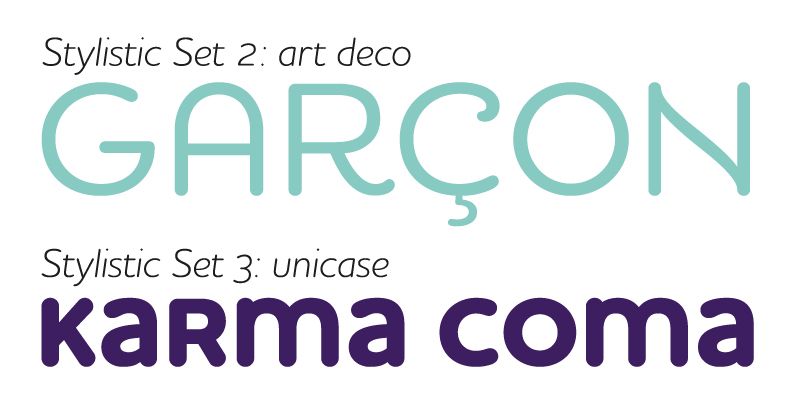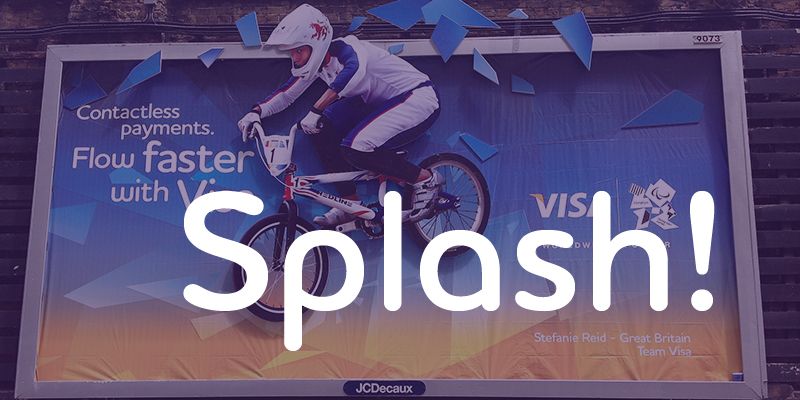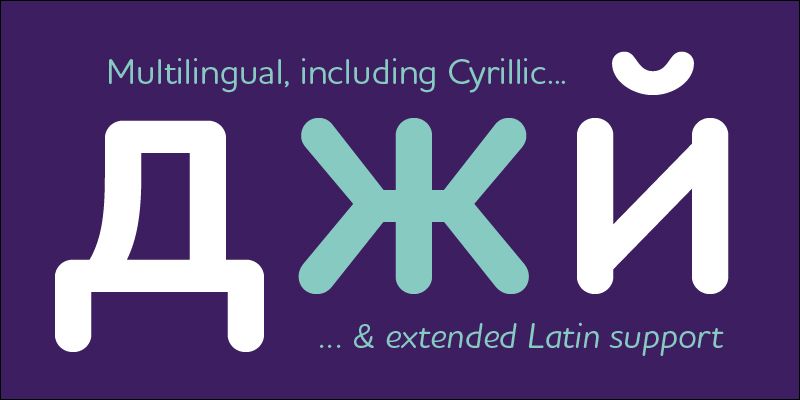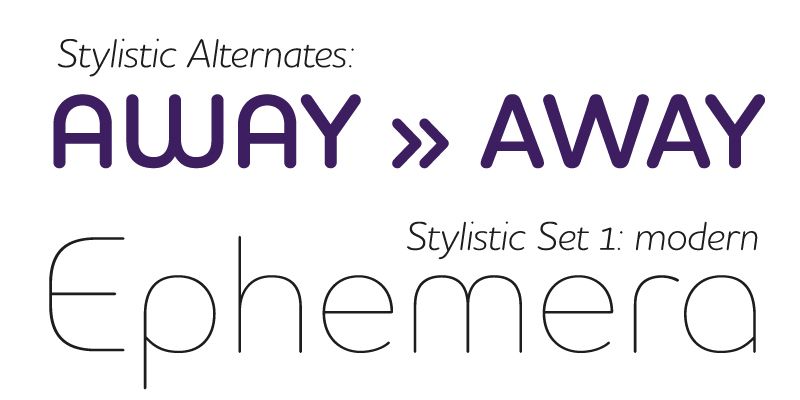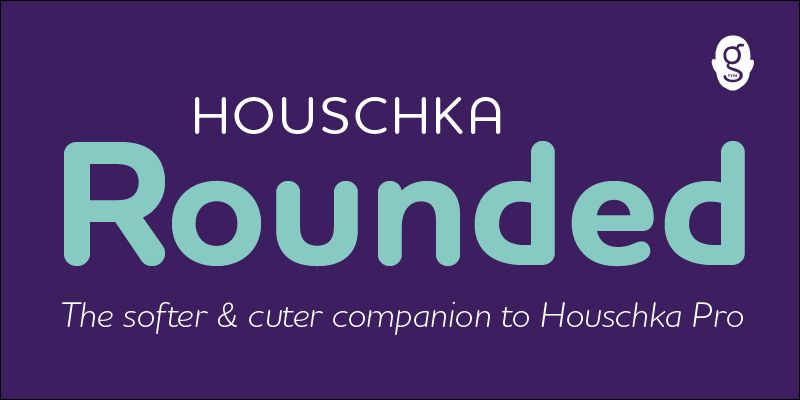
The softer and cuter companion to Houschka Pro with even rounder curves and terminals. Equally versatile and feature rich as her big sister, this ultra friendly typeface makes a definite splash.